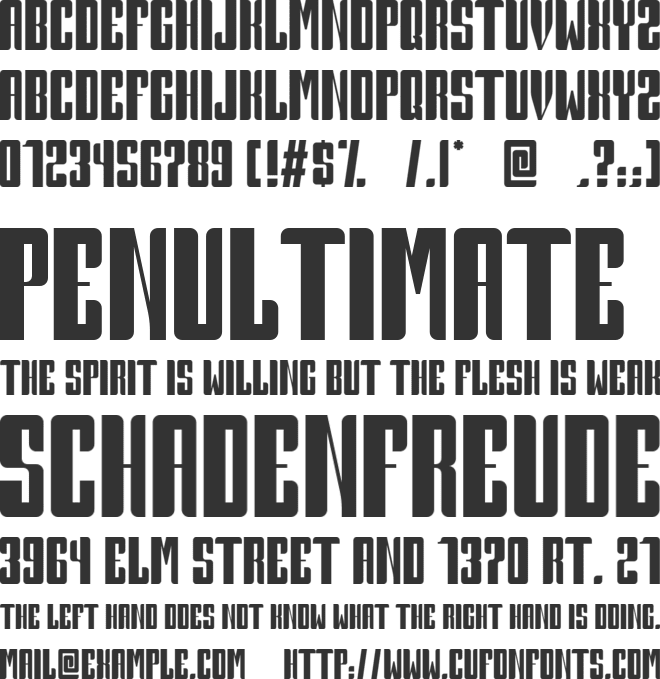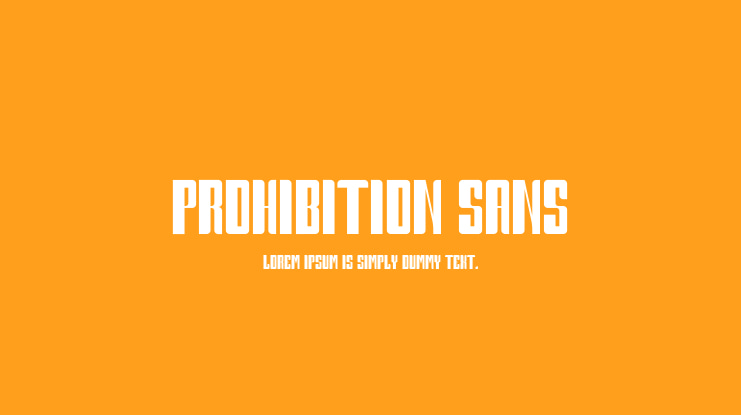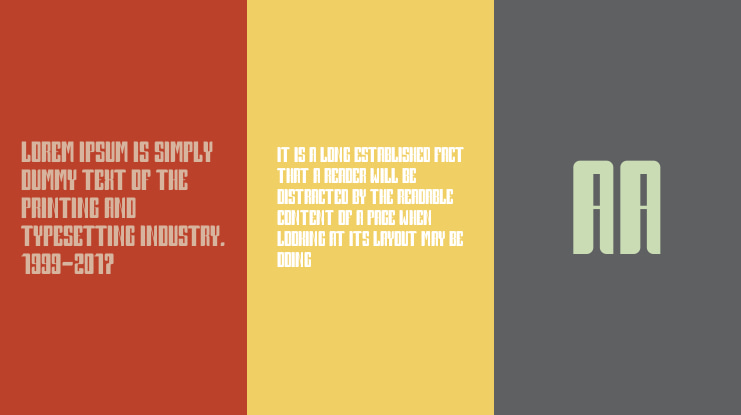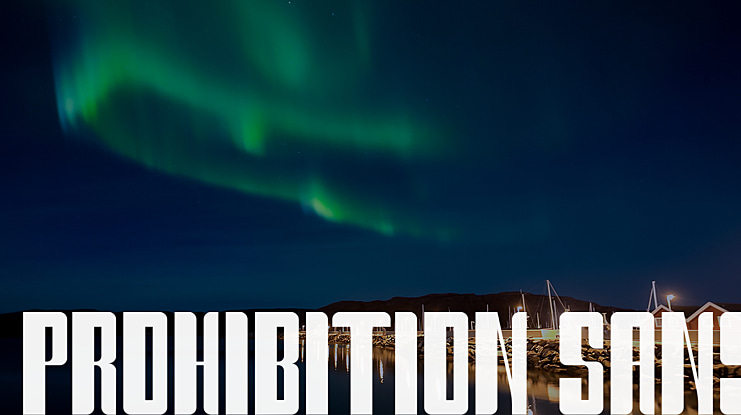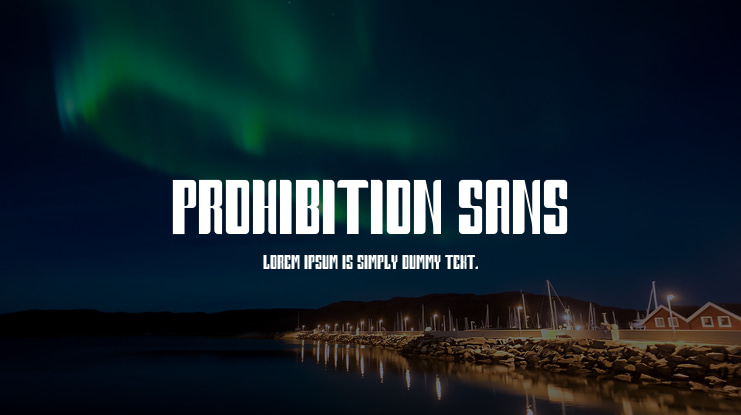
Prohibition Sans Font
Prohibition Sansan oldfashioned condensed sans serif font with a rather strange futuristic character. Love it or hate it like the prohibition itself.